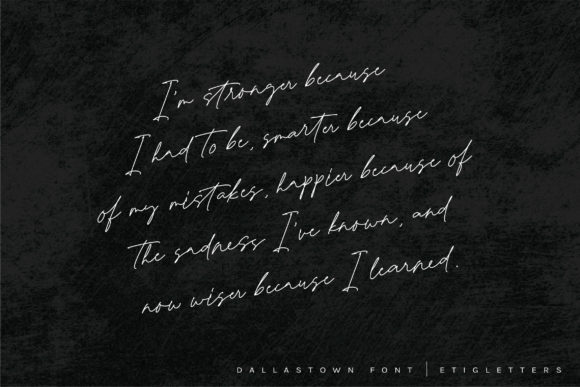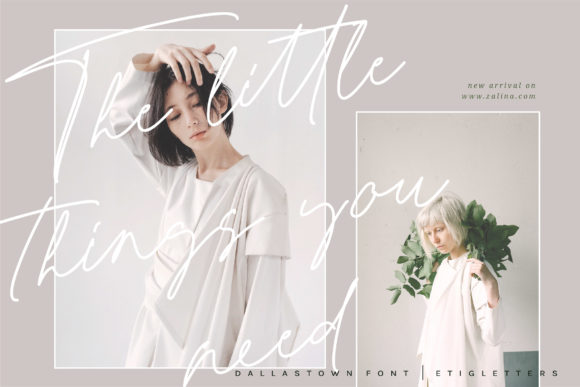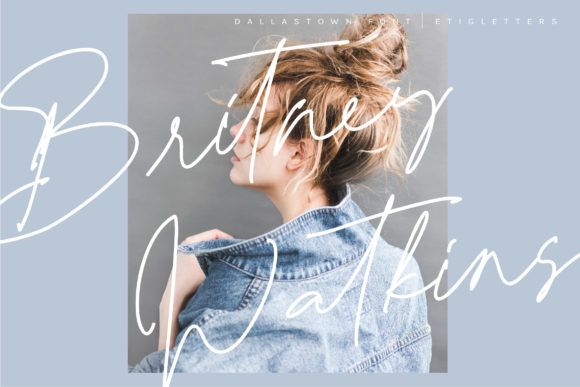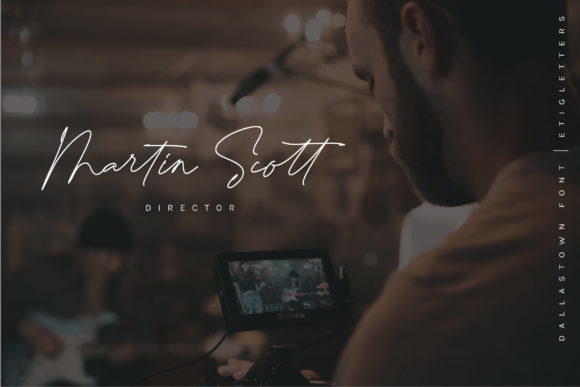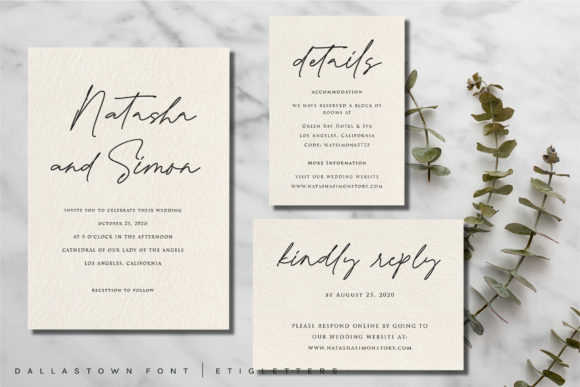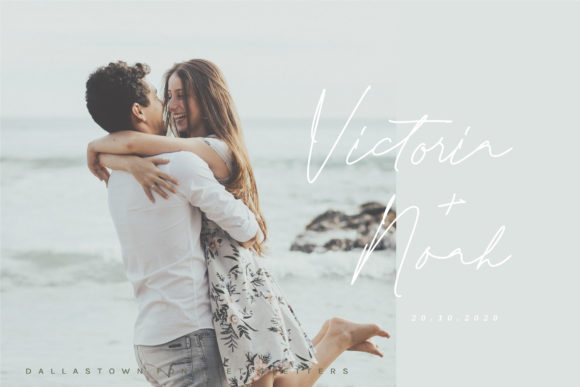
Introducing Dallastown Font: Elevate Your Designs with Elegance and Sophistication
In the world of typography, a font can make or break a design. It’s the perfect blend of style, elegance, and personality that can elevate a project from ordinary to extraordinary. If you’re a designer, crafter, or simply someone who appreciates beautiful typography, you’re in for a treat. Say hello to Dallastown Font, a stunning handwritten font that’s about to take your designs to the next level.
What Makes Dallastown Font So Special?
Dallastown Font is a flowing and incredibly relaxed handwritten font that’s designed to add a touch of sophistication and elegance to any project. Its unique features make it stand out from the crowd, and here are just a few reasons why you’ll fall in love with it:
- PUA Encoded for Easy Access: Dallastown Font is PUA (Private Use Area) encoded, which means you can access all the glyphs and swashes with ease. This feature makes it incredibly user-friendly, allowing you to focus on your design rather than getting bogged down in complicated font mechanics.
- Varying Baseline for a Natural Look: The font features a varying baseline, which gives it a natural, organic feel that’s perfect for creating a sense of movement and fluidity in your designs.
- Smooth Lines and Gorgeous Glyphs: Dallastown Font boasts smooth lines and gorgeous glyphs that are sure to impress. Each character is carefully crafted to ensure that your text looks beautiful and refined.
- Stunning Alternates for Added Versatility: The font includes stunning alternates that give you even more options for customizing your text. Whether you’re looking for a subtle variation or a bold statement, Dallastown Font has got you covered.
A Perfect Blend of Classy and Contemporary
One of the standout features of Dallastown Font is its ability to balance classy calligraphic influences with a contemporary, fresh feel. This makes it perfect for a wide range of design projects, from elegant branding and packaging to beautiful stationery and digital media.
Whether you’re a seasoned designer or just starting out, Dallastown Font is an excellent addition to your typography toolkit. Its versatility and elegance make it suitable for:
- Branding and Logo Design: Create a lasting impression with a custom logo that exudes sophistication and style.
- Packaging Design: Add a touch of elegance to your product packaging and make it stand out on store shelves.
- Stationery and Invitations: Create beautiful, one-of-a-kind stationery and invitations that showcase your personal style.
- Digital Media: Use Dallastown Font to add a touch of class to your website, social media graphics, or digital advertising.
Why Choose Dallastown Font?
With so many fonts available, it’s hard to know which one to choose. Here are just a few reasons why Dallastown Font stands out from the crowd:
- Unique and Eye-Catching: Dallastown Font is a true showstopper, with its flowing lines and elegant glyphs sure to grab attention.
- Easy to Use: The font’s PUA encoding and user-friendly design make it easy to use, even for those with limited design experience.
- Highly Versatile: Dallastown Font is suitable for a wide range of design projects, from elegant branding to beautiful stationery.
If you’re looking for a font that will elevate your designs to new heights, look no further than Dallastown Font. Its unique blend of elegance, sophistication, and versatility makes it the perfect choice for designers, crafters, and anyone who appreciates beautiful typography. With its flowing lines, gorgeous glyphs, and stunning alternates, Dallastown Font is sure to become a favorite in your typography toolkit.